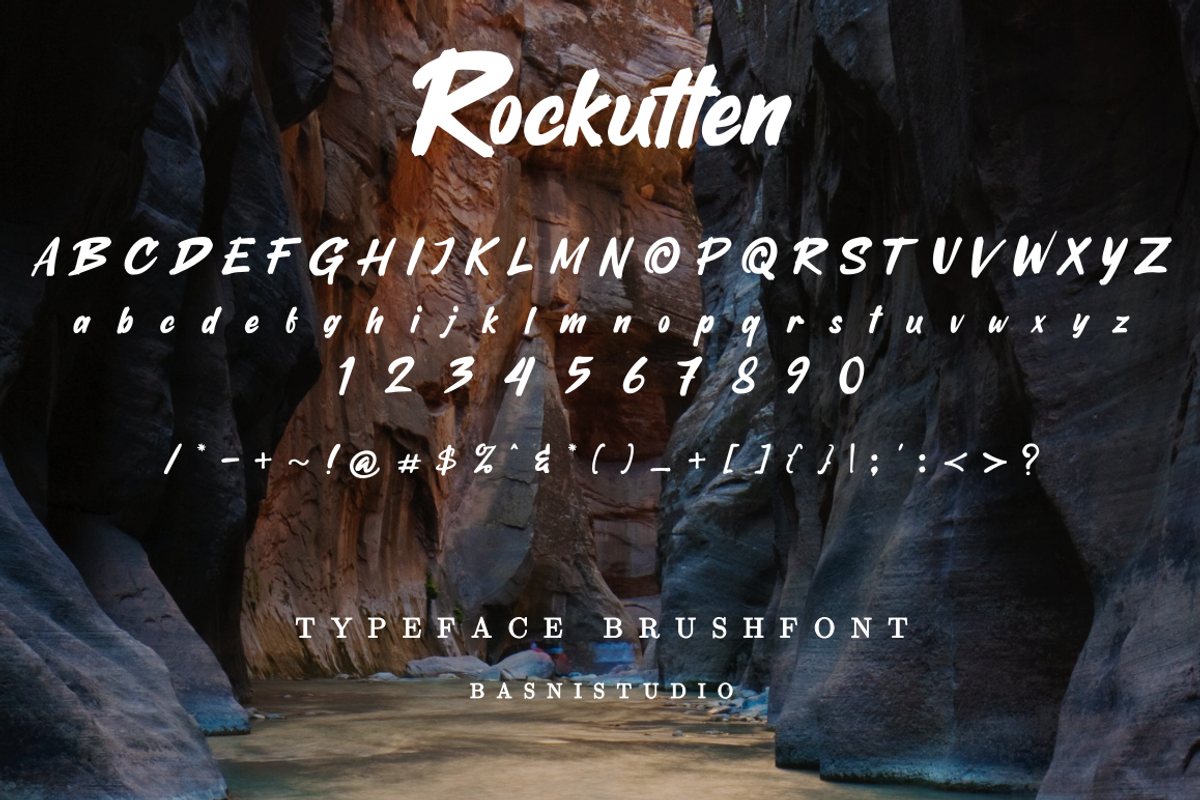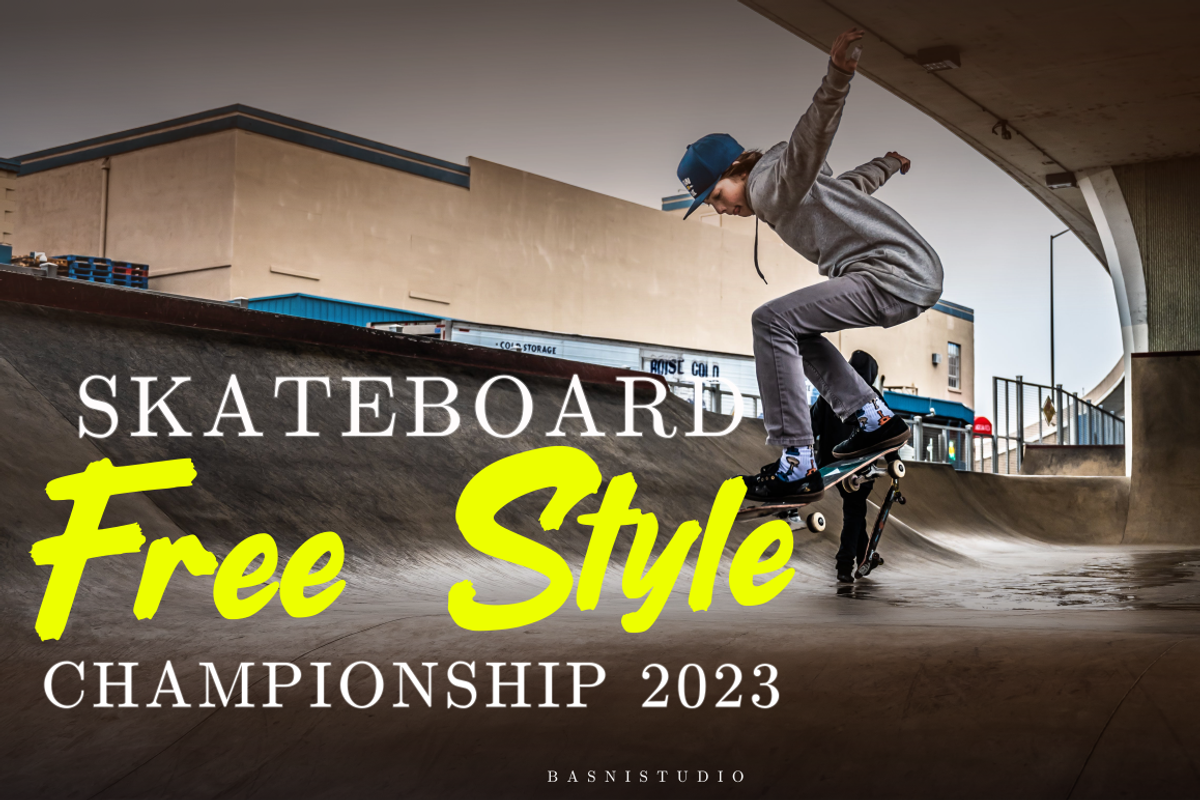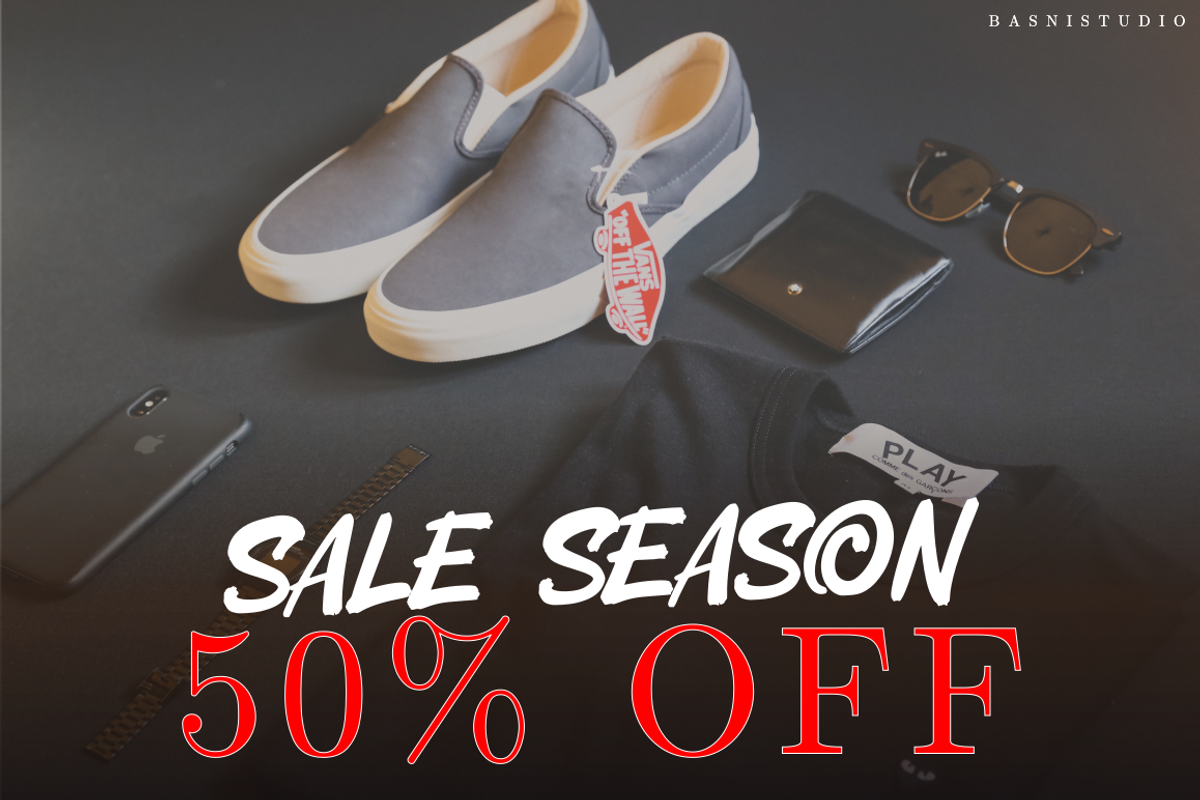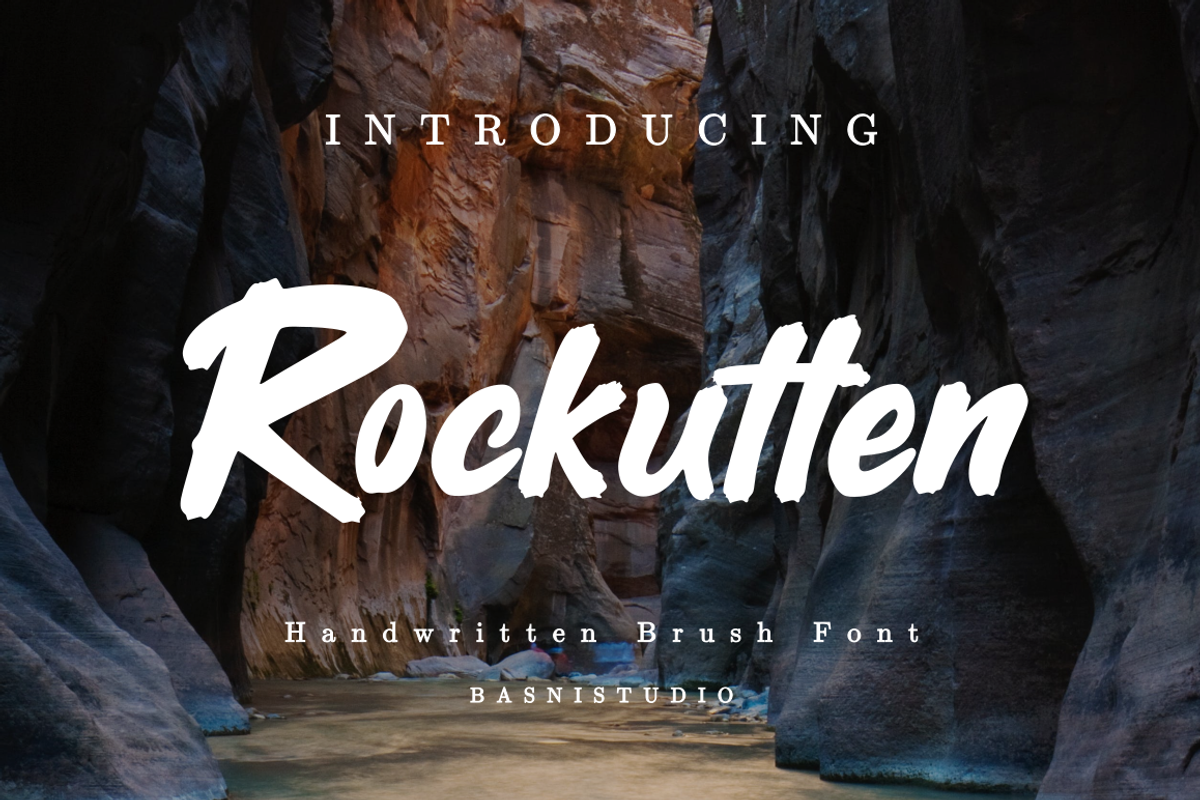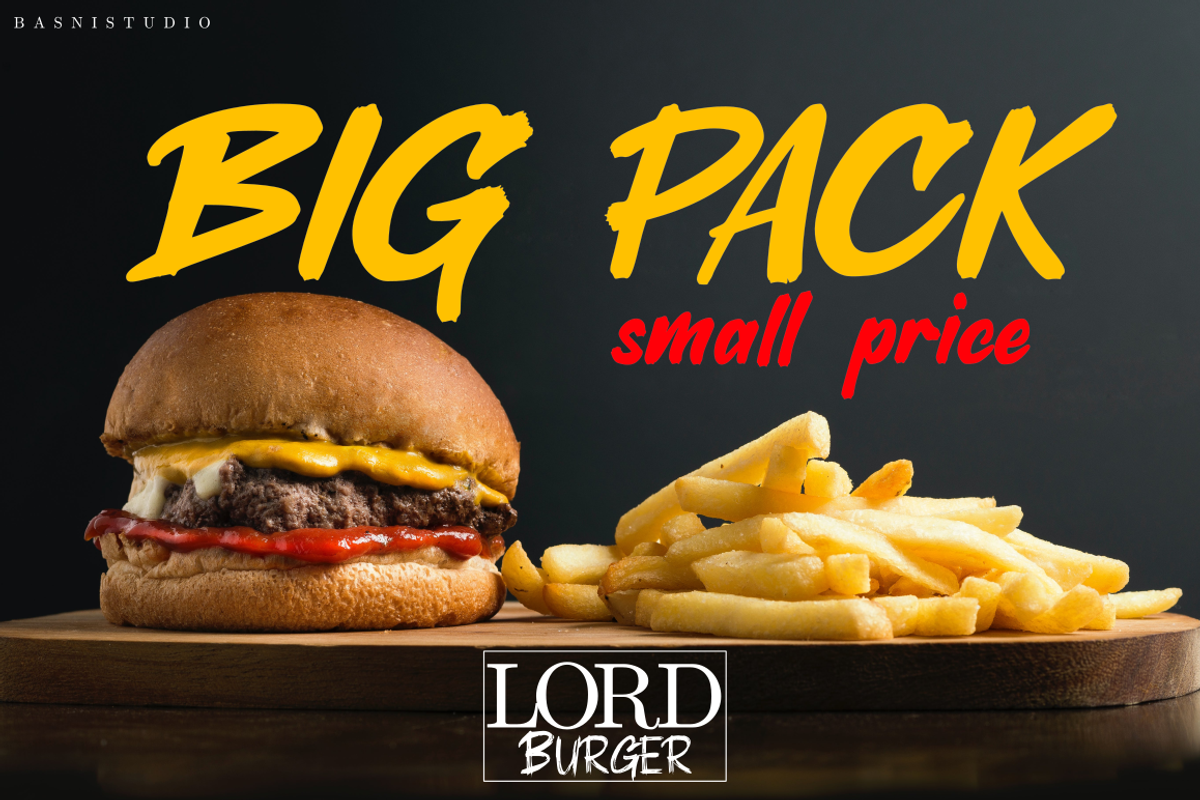
Rockutten Handwritten Brush Font
Introducing Rockutten Handwritten Brush Font
Rockutten Handwritten Brush Font, made with Naturaly and precision, perfect for branding, websites, and editorial designs. Includes all Caps letters, multilingual support, punctuation, binding. everything can be easily accessed using software that supports OpenType. What’s include: